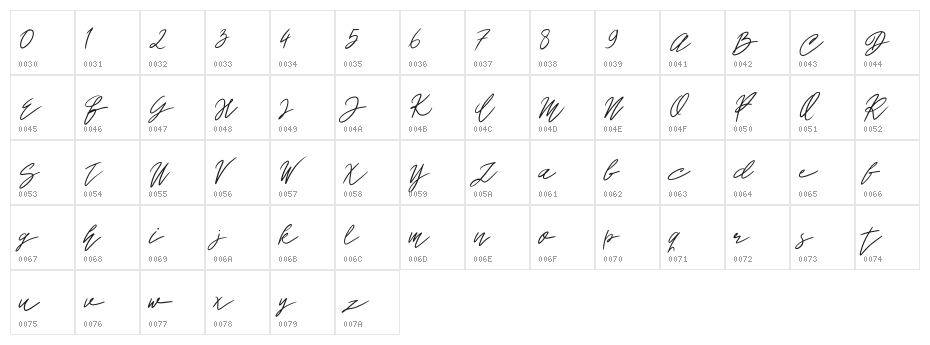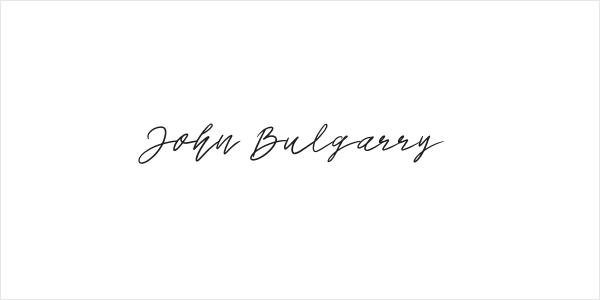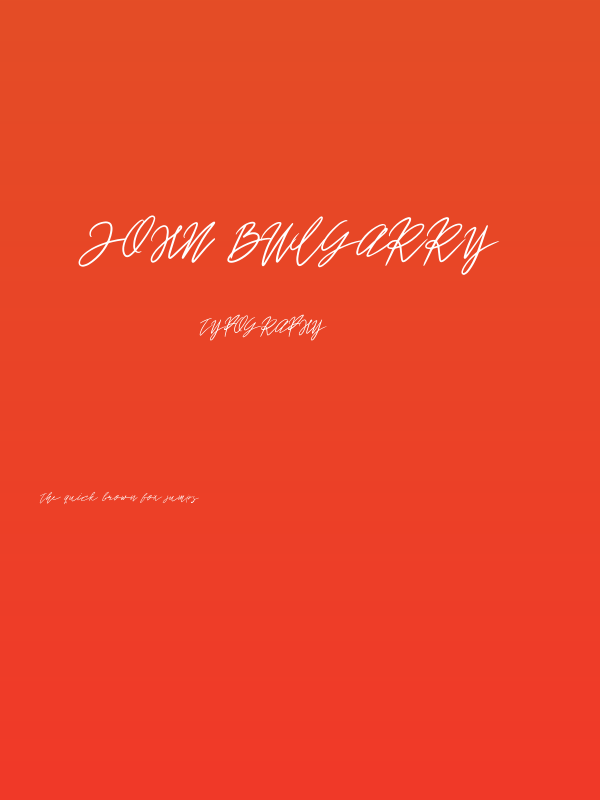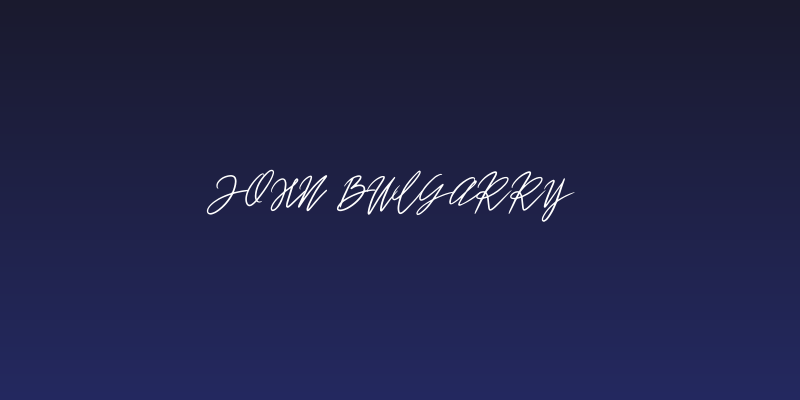
John Bulgarry Font
John Bulgarry Description
This font exhibits a flowing, cursive style with elegant, sweeping strokes that mimic the fluidity of handwriting. The characters are connected, creating a seamless and continuous appearance. The uppercase letters are bold and prominent, while the lowercase letters maintain a consistent flow, enhancing readability. The numerals and special characters are crafted with the same attention to detail, ensuring a cohesive look across all elements. This font's design is both sophisticated and approachable, making it suitable for a variety of applications.